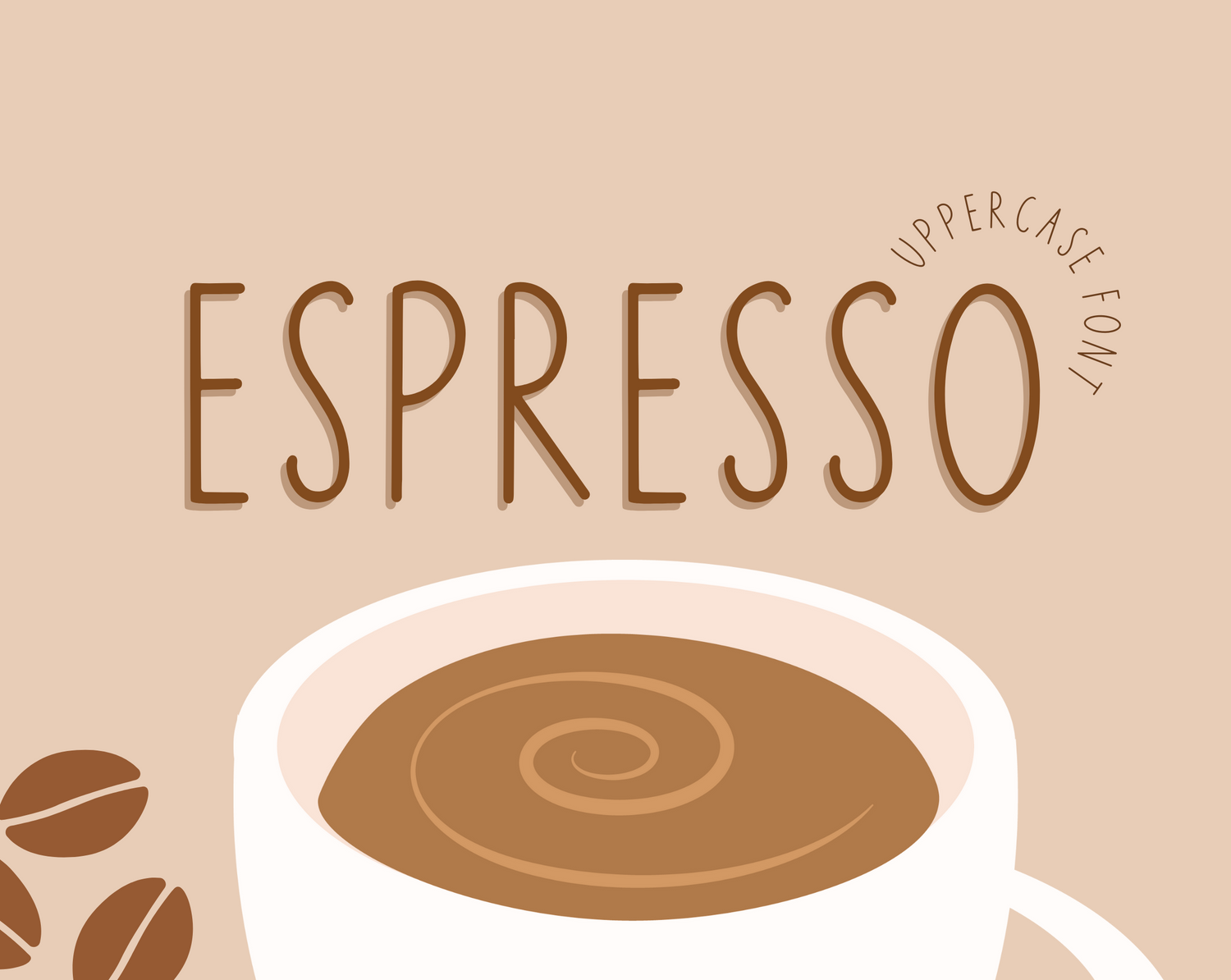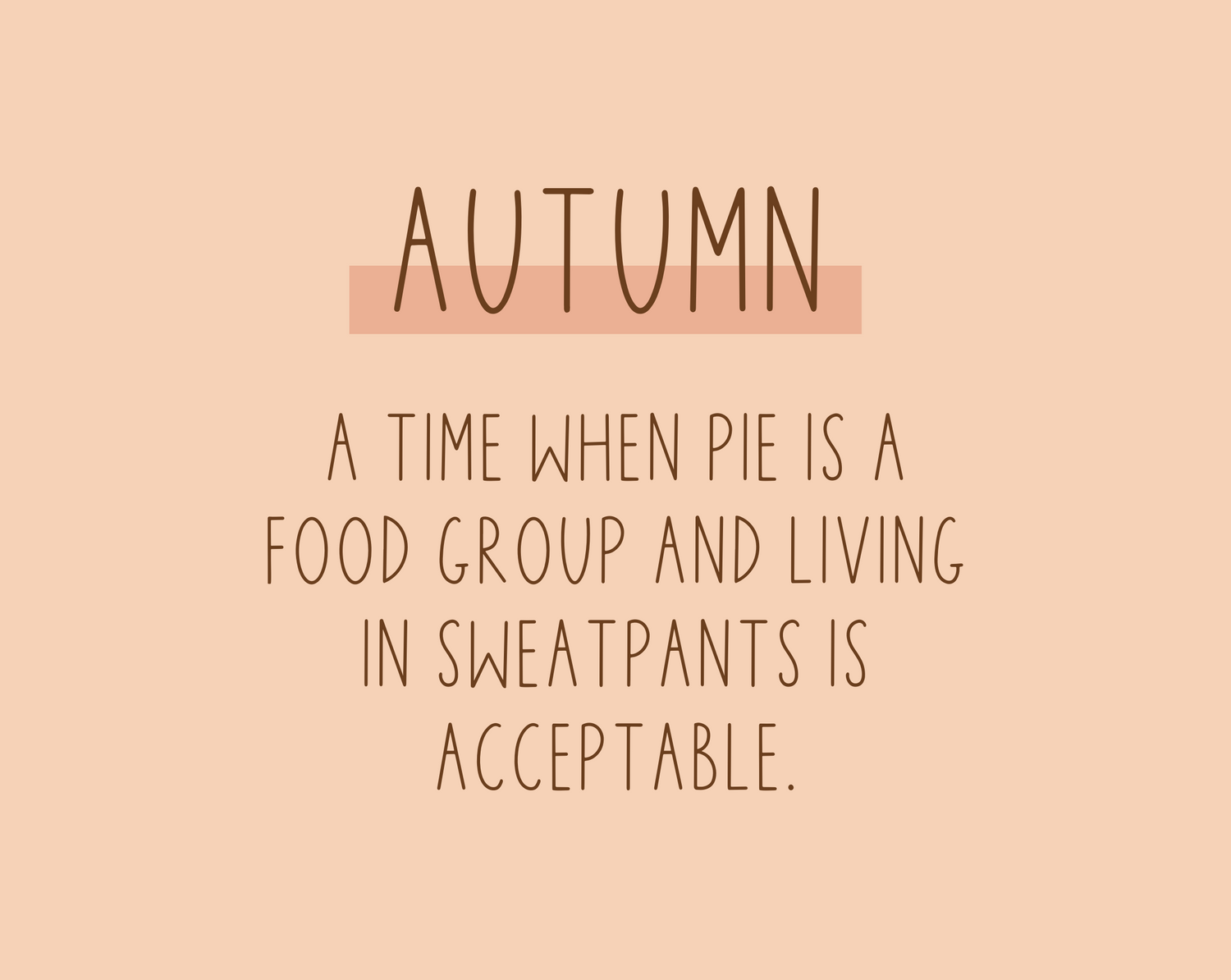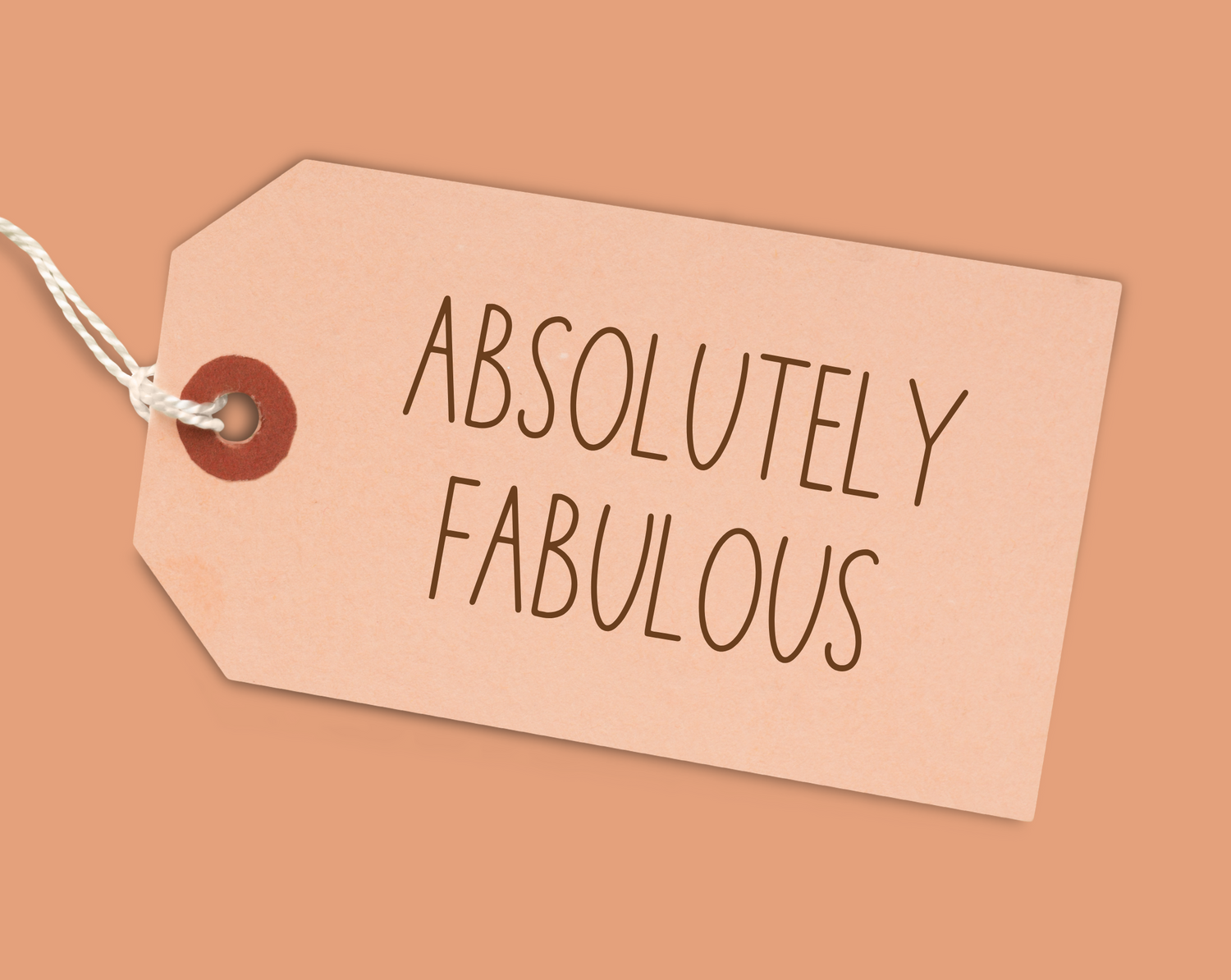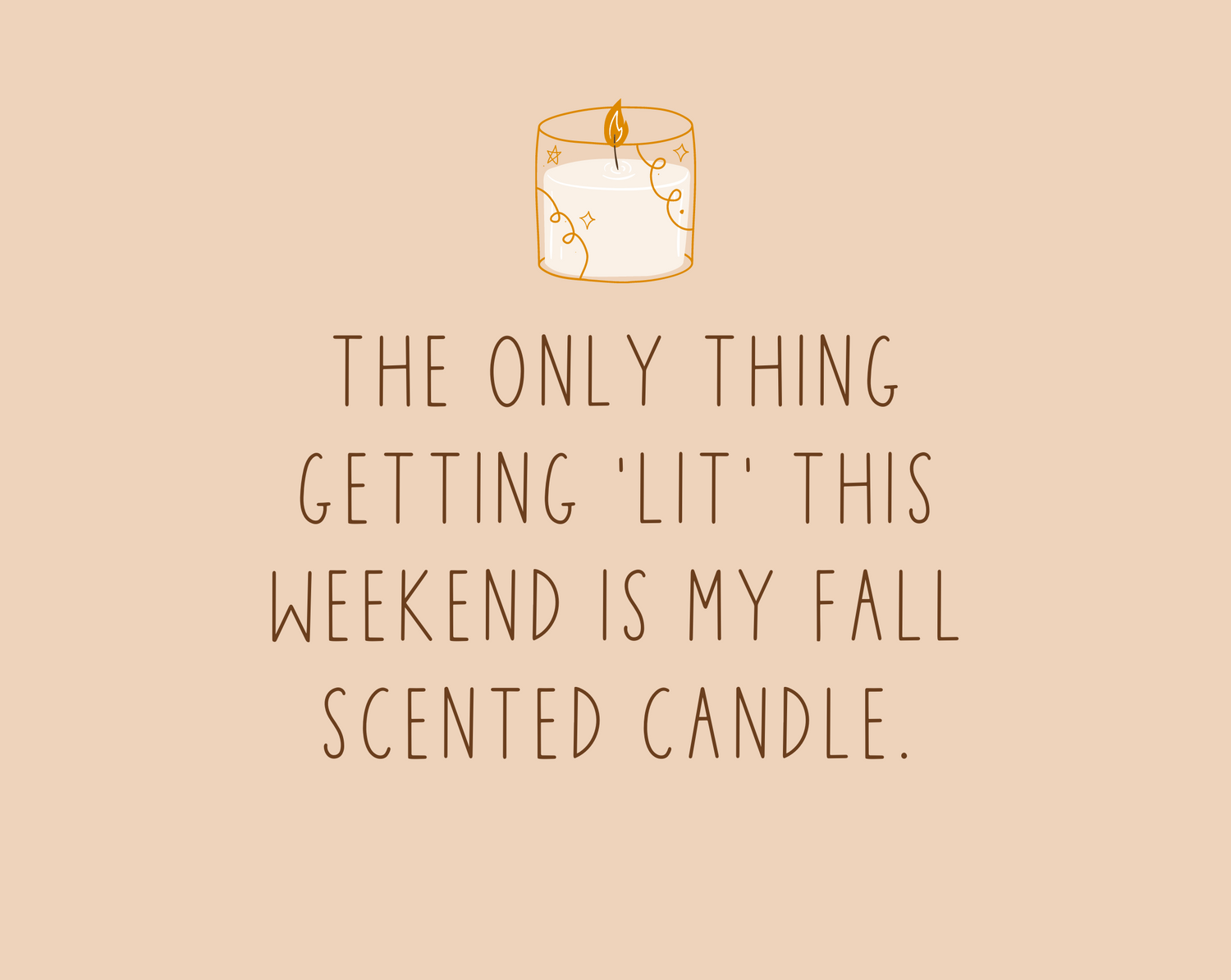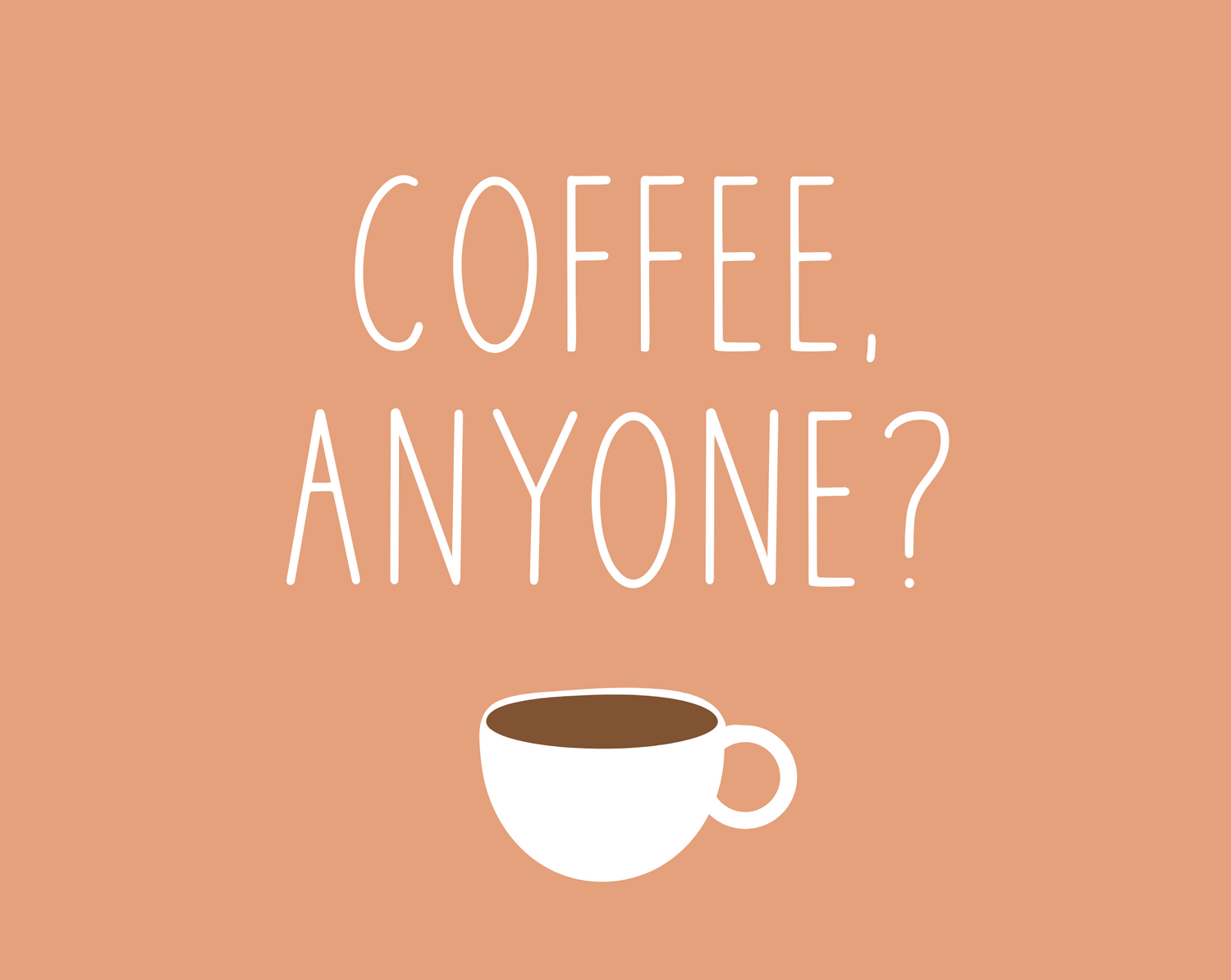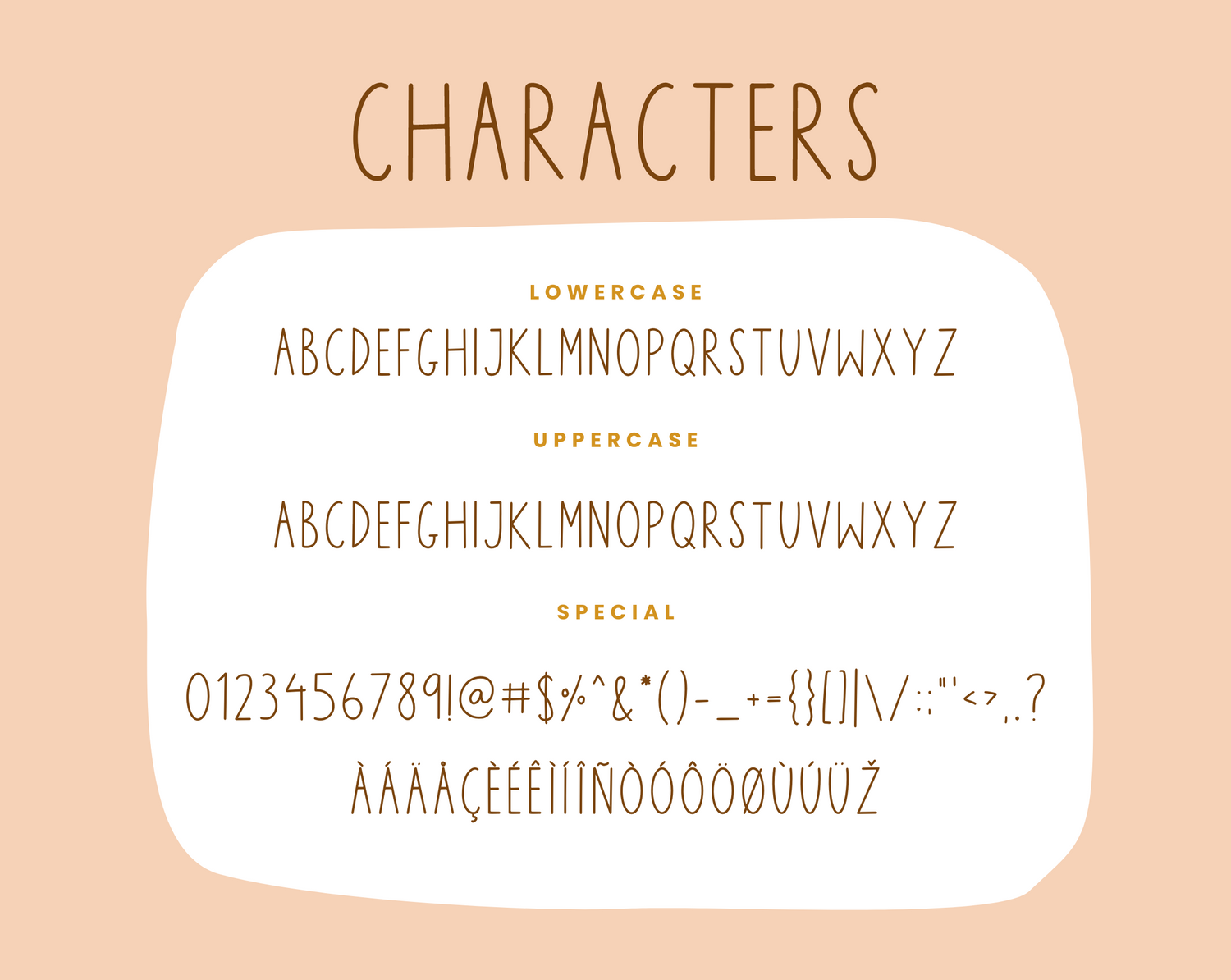
Espresso Font
Espresso font is an uppercase font for cute handwritten quotes, titles and notes. This all-caps font can be used for Procreate, Goodnotes, iPad, Photoshop, Canva and more. It's a handwritten font in all capitals for digital planning, note-taking, logos, crafty work and digital projects.